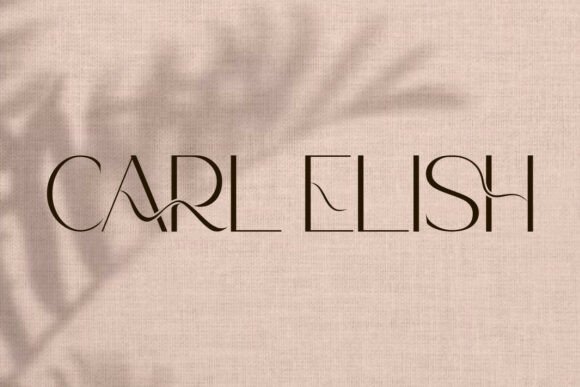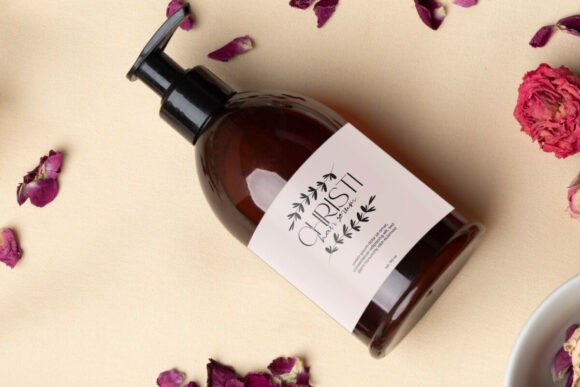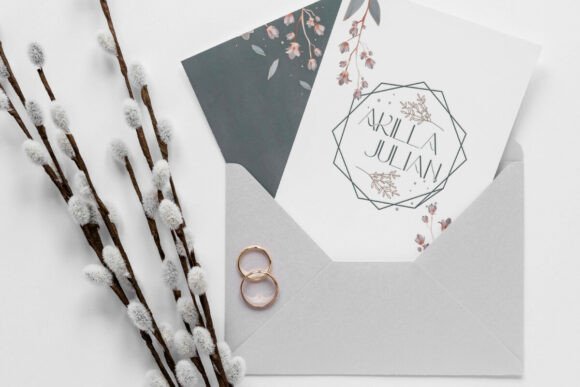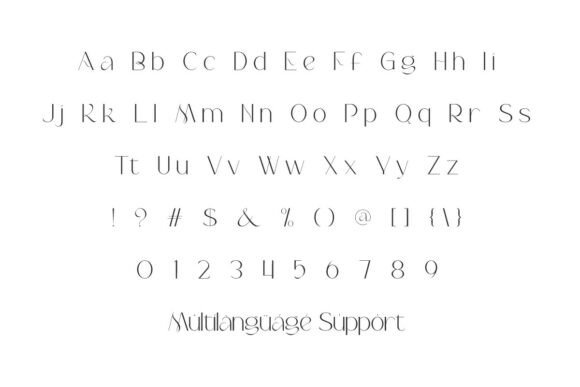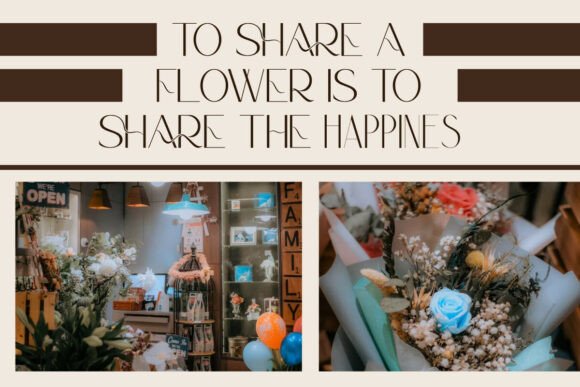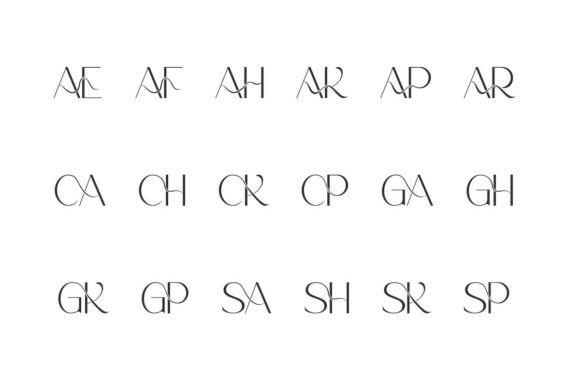
A Touch of Luxury in Every Letter
As designers, we’ve all been there – staring at a blank page, trying to find the perfect font to convey the essence of our brand. It’s that moment when everything comes together, and the words on the page transport us to a world of elegance and sophistication. For those looking to elevate their luxury product branding, fine jewelry and watch logos, or high-end cosmetics, the Carl Elish Font is about to become your new best friend.
This stunning display sans-serif typeface is designed to capture the essence of modern luxury, with incredibly thin lines and artful ligatures that will leave your audience in awe. With its exceptionally narrow, almost monolinear structure and extraordinary connected letterforms, the Carl Elish Font is an absolute necessity for any designer looking to create an exquisite, minimalist yet highly decorative display font that embodies opulence and high-fashion.
- Font Family: Carl Elish is a sans-serif font family designed for use in digital interfaces.
- Unique Characteristics: Carl Elish features a clean and modern design with a subtle rounded edge, making it ideal for use in user interfaces, digital signage, and other applications where readability is crucial.
I recently had the chance to work with the Carl Elish font, and I must say it’s been an interesting experience. ✨ One thing that really stands out is its unique aesthetic. The font’s blend of modern and vintage elements creates a visually appealing combination that can add a touch of sophistication to any design.
- ✨ The font’s unique letterforms can help to create a memorable and distinctive brand identity.
However, there are a few limitations that should be taken into account. ⚠️ One of the main issues is the font’s readability at smaller font sizes. While the font looks great at larger sizes, it can become difficult to read at sizes below 12pt.
Another potential issue is the font’s lack of support for certain languages. This could be a problem for designers working on multilingual projects.
Overall, I would say that the Carl Elish font is a solid choice for designers looking for a unique and stylish font. While it may not be perfect, its strengths far outweigh its limitations, and with some careful planning and consideration, it can be a valuable addition to any design project.